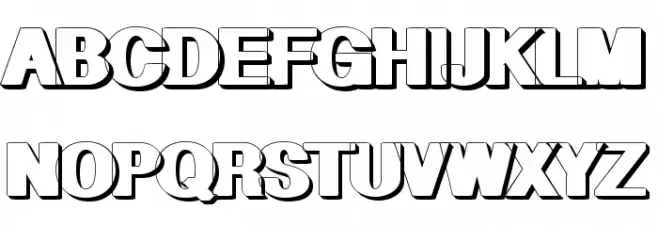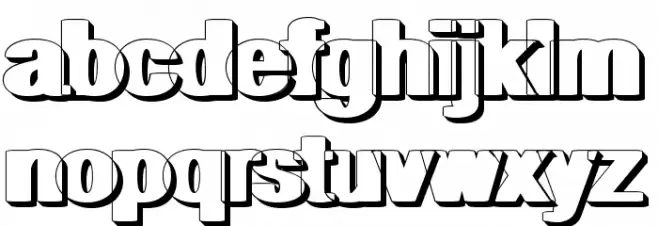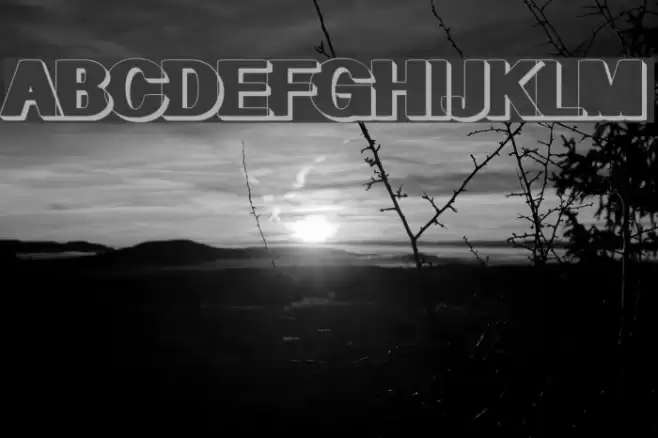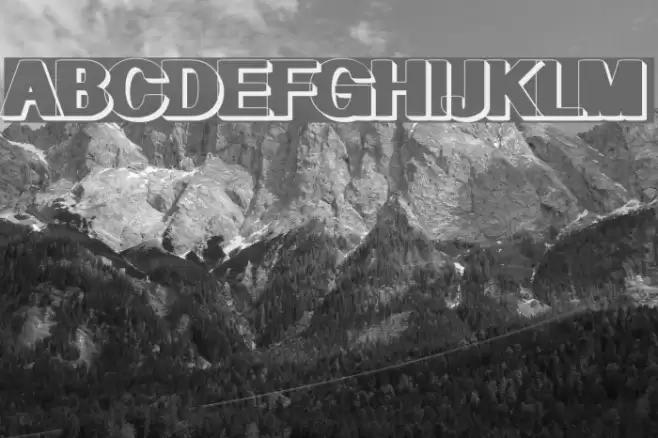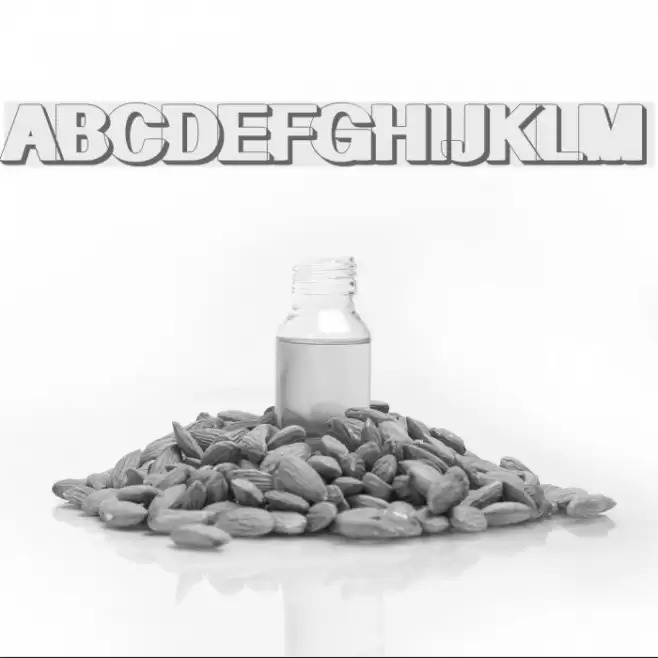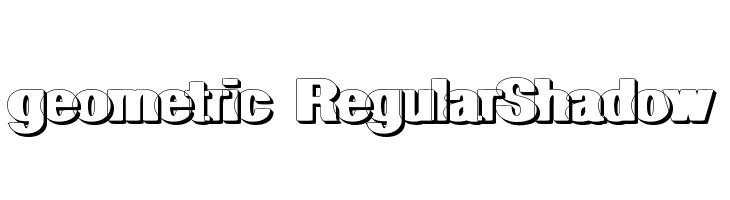
geometric RegularShadow
This font features a bold, geometric style with a distinct shadow effect that adds depth and dimension to each character. The uppercase and lowercase letters are well-proportioned, maintaining a consistent weight throughout. The numerals and special characters follow the same design principles, ensuring a cohesive look across all glyphs. The shadow effect gives the font a three-dimensional appearance, making it stand out in any design. Its clean lines and structured form make it suitable for various applications, especially where a strong visual impact is desired.
A bold geometric font with a shadow effect, offering a three-dimensional appearance.
- Proposed Projects: Ideal for posters, headlines, logos, and any design requiring a bold statement.
- Use Case: Headlines, Logos, Posters